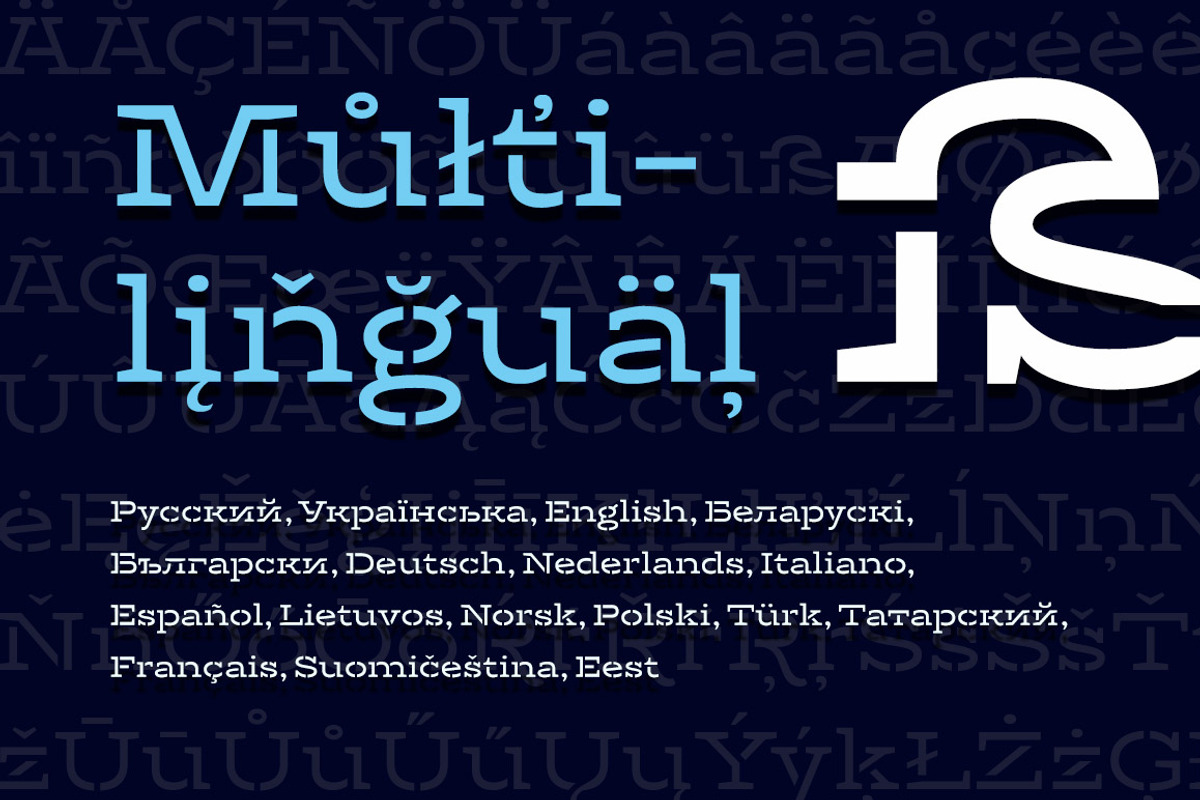
Gora Stencil – Reg & Bold
Typeface «Gora» — a cute, original extended Slab Serif. This package include 2 stencil weights: Regular, Bold. «Gora» includes many features: ligatures, fractions, numbers, subscript and superscript numbers, arrows, and currency symbols. Multilingual.
Excellent choice for headlines and small amounts of text, logos and illustrations, labels and packaging.
Type features
- Fractions
- Superscript
- Subscript